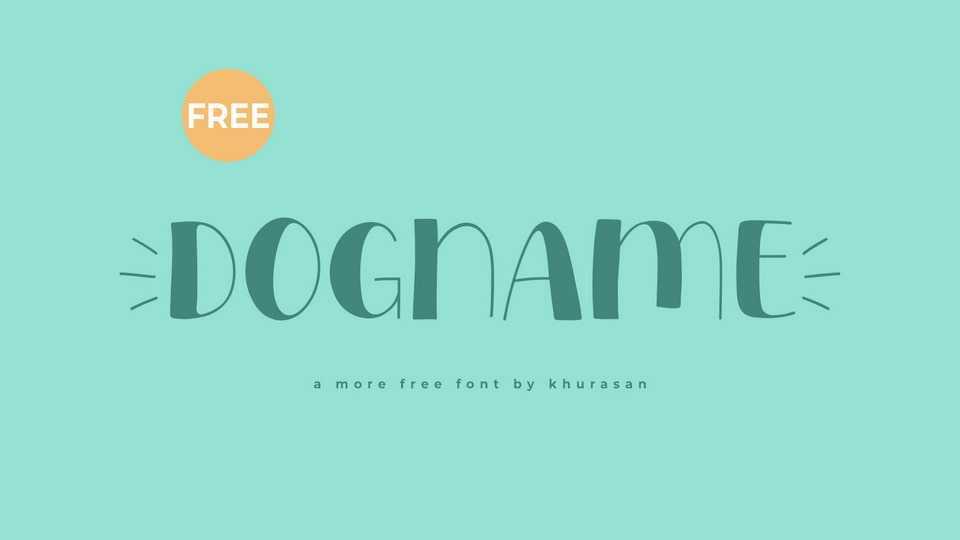
Download Dogname font, a cute and playful hand-drawn typeface that adds a delightful touch to your designs with its charming contrast strokes. The delightful contrast strokes add a touch of sophistication, making Dogname font an ideal choice for designs that seek a perfect balance between cuteness and elegance.